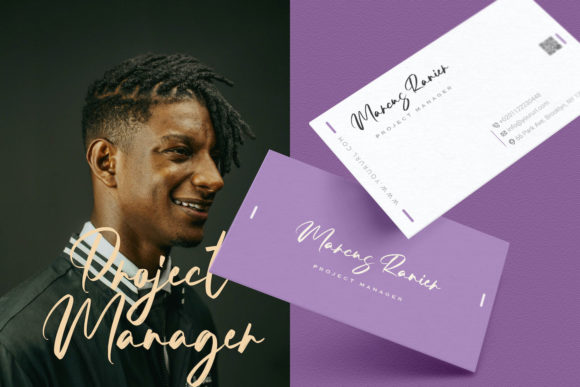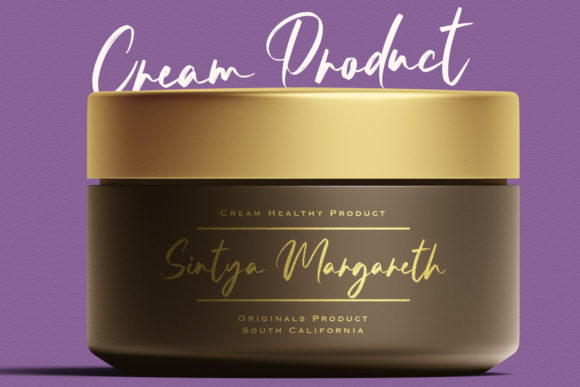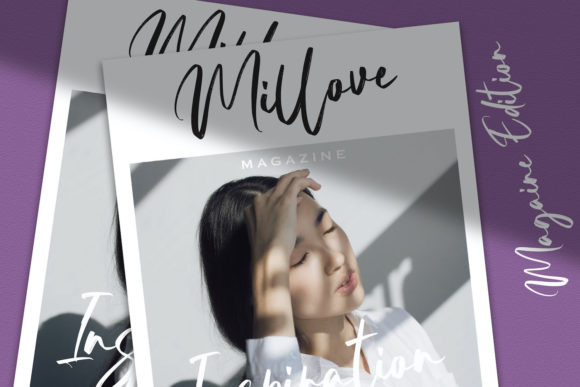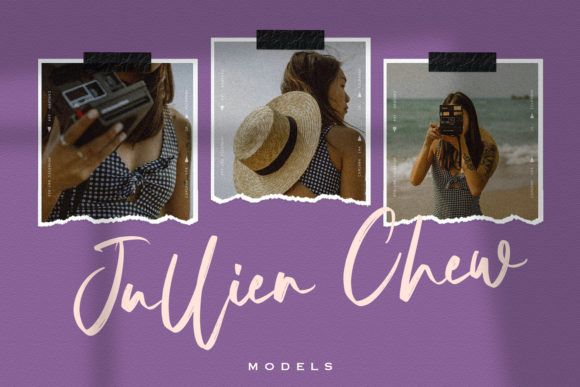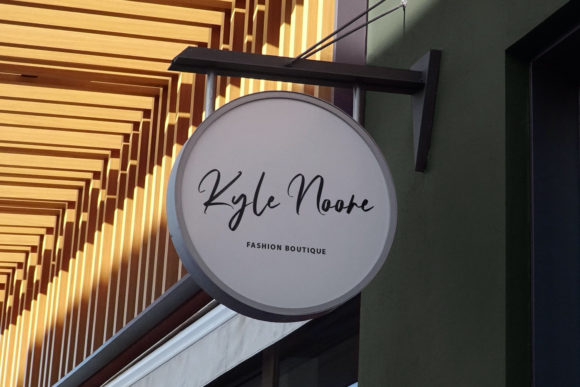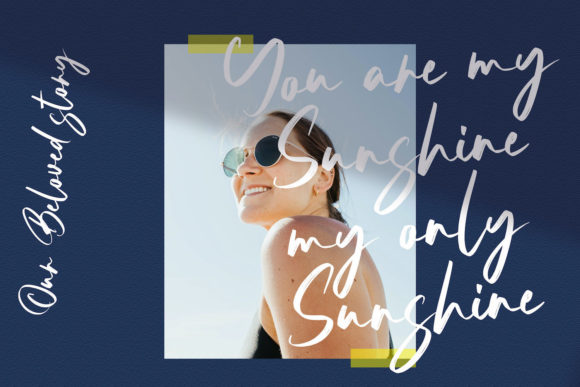
Introduction to Resttu Pagi Font
Resttu Pagi is a lovely script font featuring charming, playful characters that seem to dance along the baseline.
Add this font to your most creative ideas, and notice how it makes them stand out .
Key Features of Resttu Pagi Font
Why Choose Resttu Pagi Font?
Resttu Pagi Font offers exceptional quality and versatility, making it a valuable addition to your design toolkit. Whether you’re creating for personal projects or commercial use, Resttu Pagi Font delivers professional results.